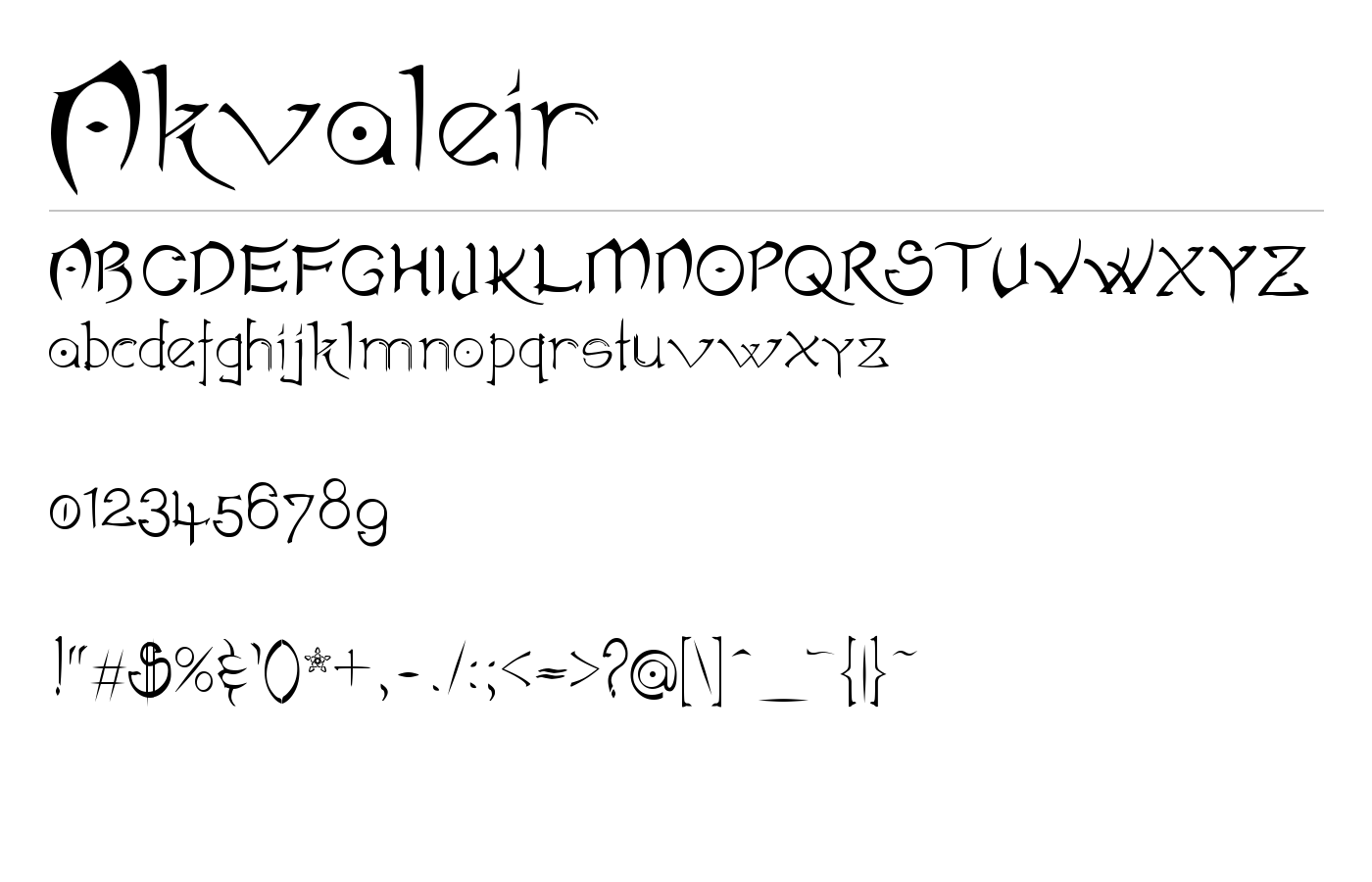
Akvaléir is a highly stylized serif font with a distinct fantasy or mystical vibe, featuring sharp, thin strokes and unique ornamental details in both uppercase and lowercase letters. Its narrow, delicate letterforms with high contrast and whimsical curves make it ideal for creative branding, logos, or editorial projects seeking an elegant yet otherworldly appearance. This font works best in display settings, adding a touch of enchantment and sophistication to headlines, packaging, or themed designs.
Akvaléir Font